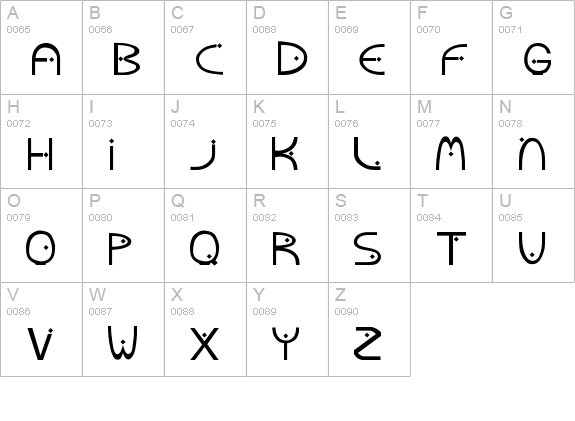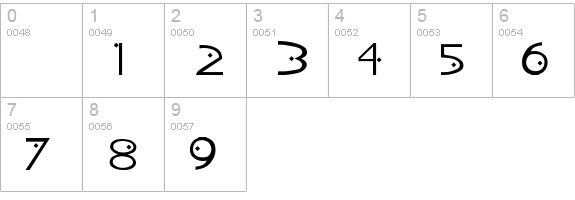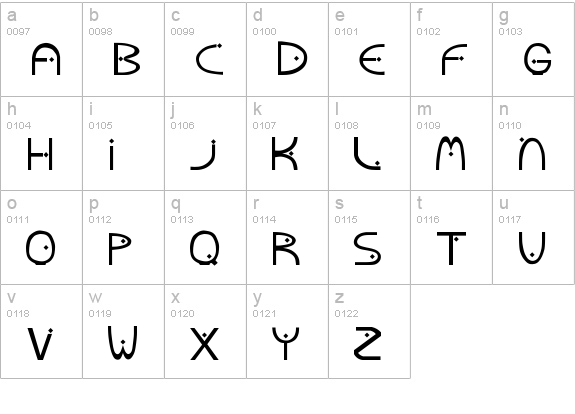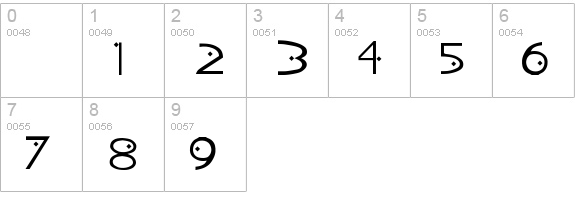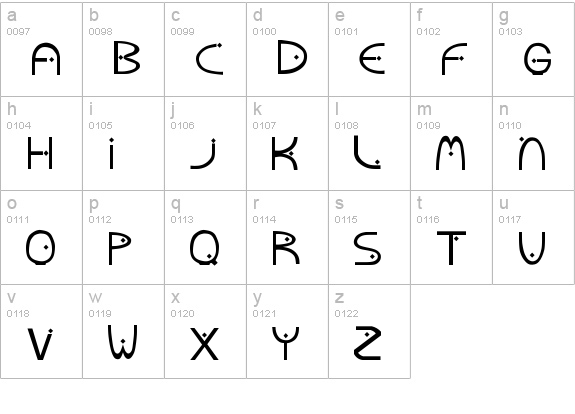
MoonBow font is a whimsical and elegant typeface that is sure to add a touch of charm to any design project. Its rounded edges and playful curves give it a friendly and approachable feel, making it perfect for a variety of creative applications. Whether you're working on a branding project, a greeting card, or a social media graphic, MoonBow font will bring a delightful and unique flair to your work. What makes MoonBow font even more appealing is that it is completely free to download. You can easily access this beautiful typeface at FontsMarket.com, where you can explore a wide range of free fonts to enhance your design projects. Don't miss out on the opportunity to elevate your designs with the delightful MoonBow font, available for free download now!